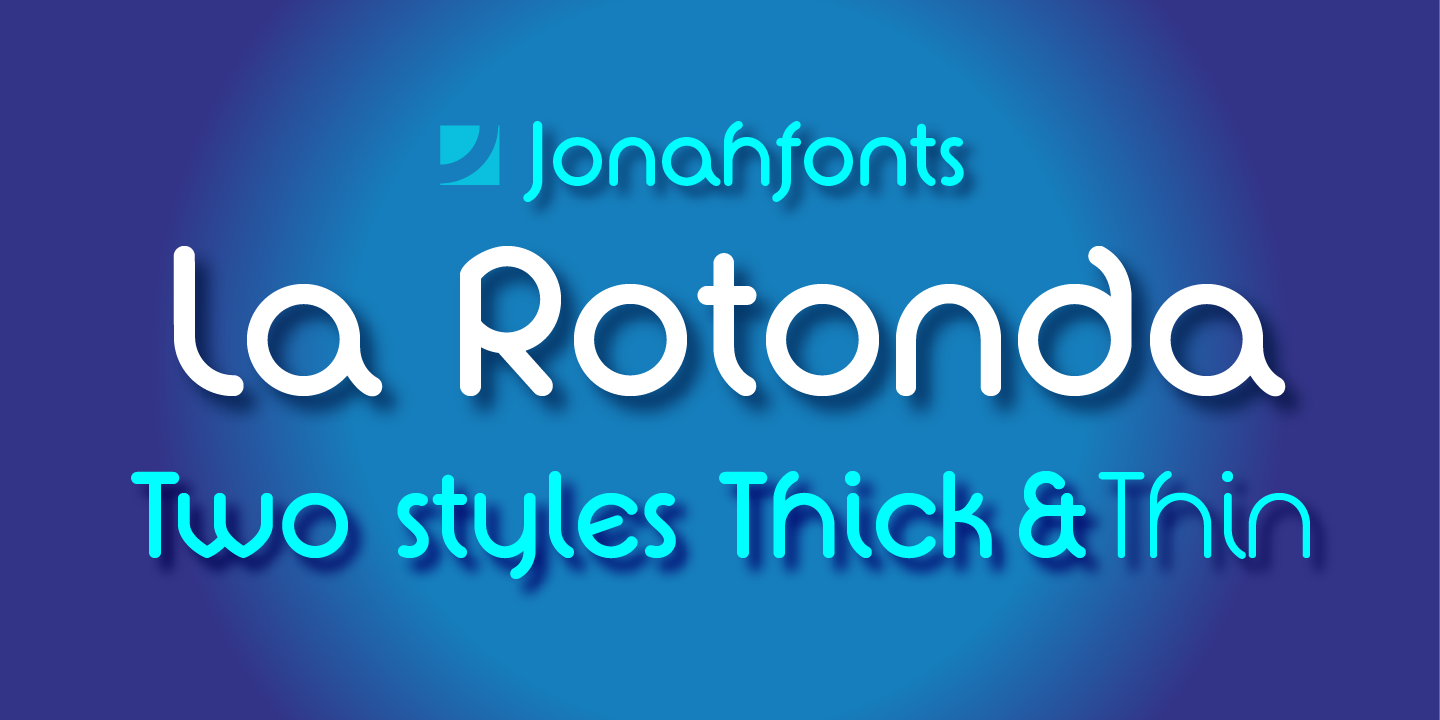
La Rotonda Font is perfect for luxury branding, high-end fashion magazines, elegant wedding invitations, premium product packaging, sophisticated logo designs, upscale restaurant menus, boutique hotel signage, art gallery exhibitions, and exclusive event promotional materials.
What makes La Rotonda Font so exciting is its perfect balance of classic elegance and modern sophistication. This stunning typeface captures attention with its refined curves and meticulously crafted letterforms that exude luxury and professionalism. The font's distinctive character makes it an ideal choice for brands seeking to establish a premium identity in today's competitive market.
La Rotonda Font family includes multiple weights and styles: Regular, Bold, Light, Medium, Black, Italic variations, Condensed versions, and Extended options. Each family member maintains the signature elegance while offering versatility for different design applications and hierarchical typography needs.
Transform your design projects with La Rotonda Font Free Download - a typeface that speaks volumes about quality and attention to detail. Whether you're working on corporate identity systems, editorial layouts, or digital marketing campaigns, this font delivers exceptional results that resonate with discerning audiences.
The versatility of La Rotonda Font extends beyond traditional print applications. It performs beautifully in web design, mobile applications, and digital interfaces, maintaining its elegant appearance across all platforms. The font's careful optimization ensures crisp rendering at various sizes, from large display headlines to smaller body text.
Professional designers consistently choose La Rotonda Font for projects requiring sophistication and visual impact. Its timeless appeal makes it suitable for both contemporary and classic design approaches, while its unique personality helps brands stand out in crowded marketplaces.